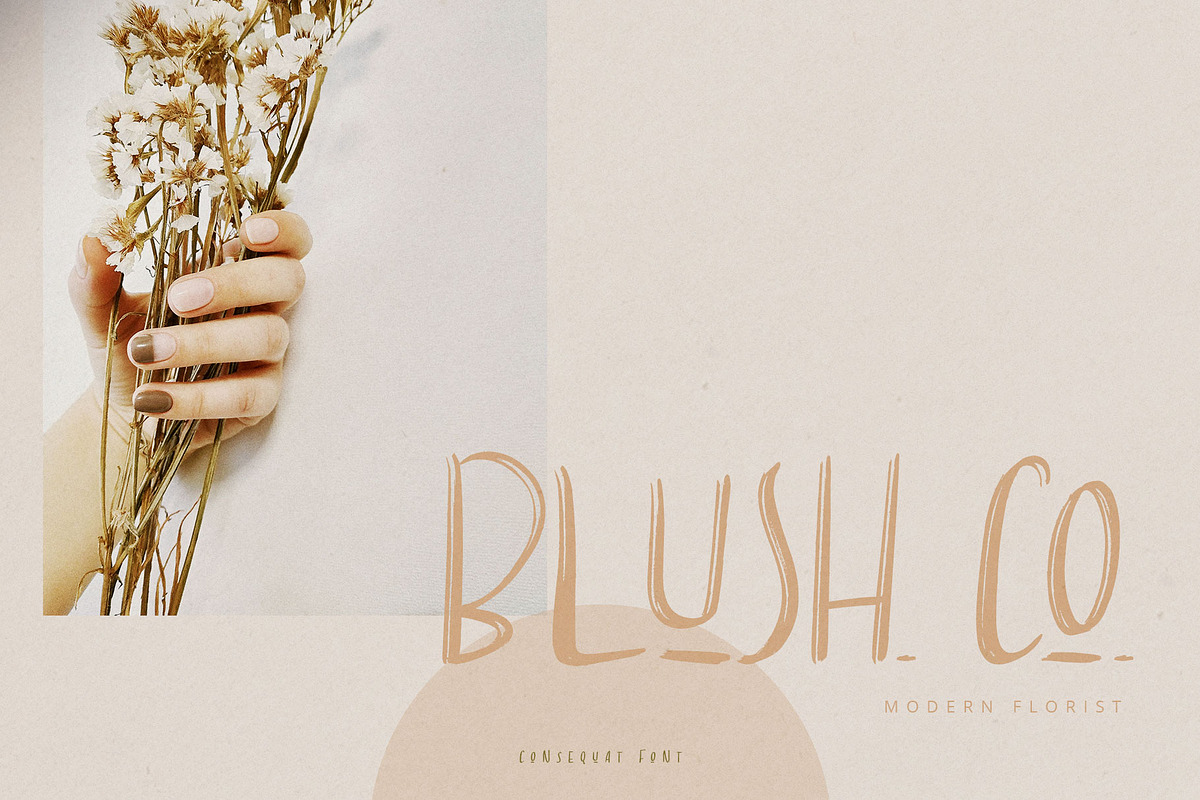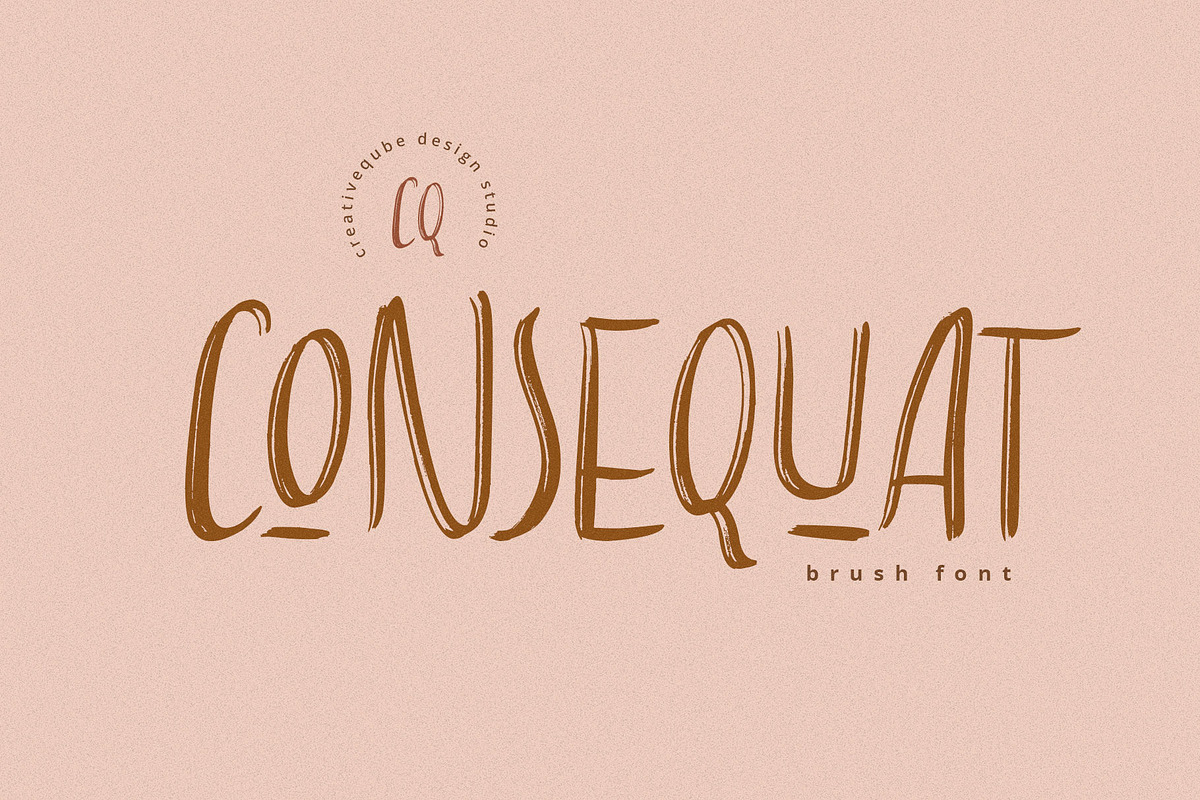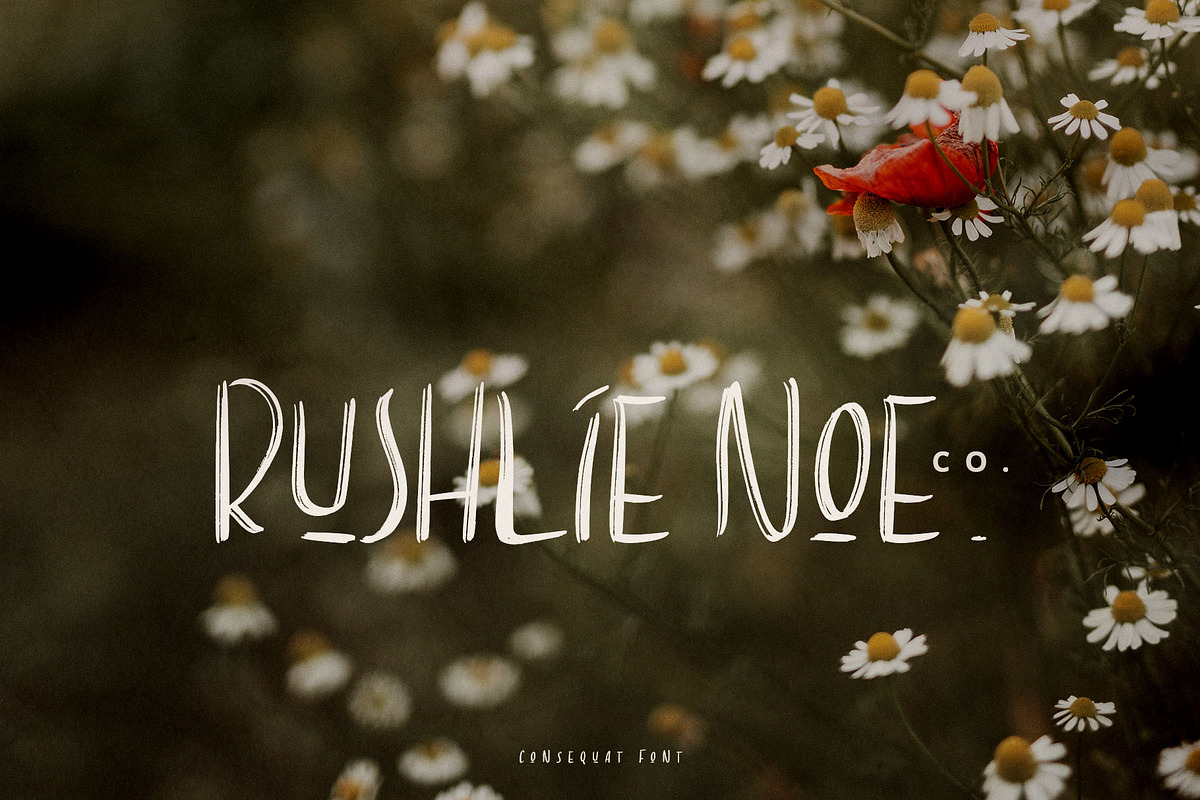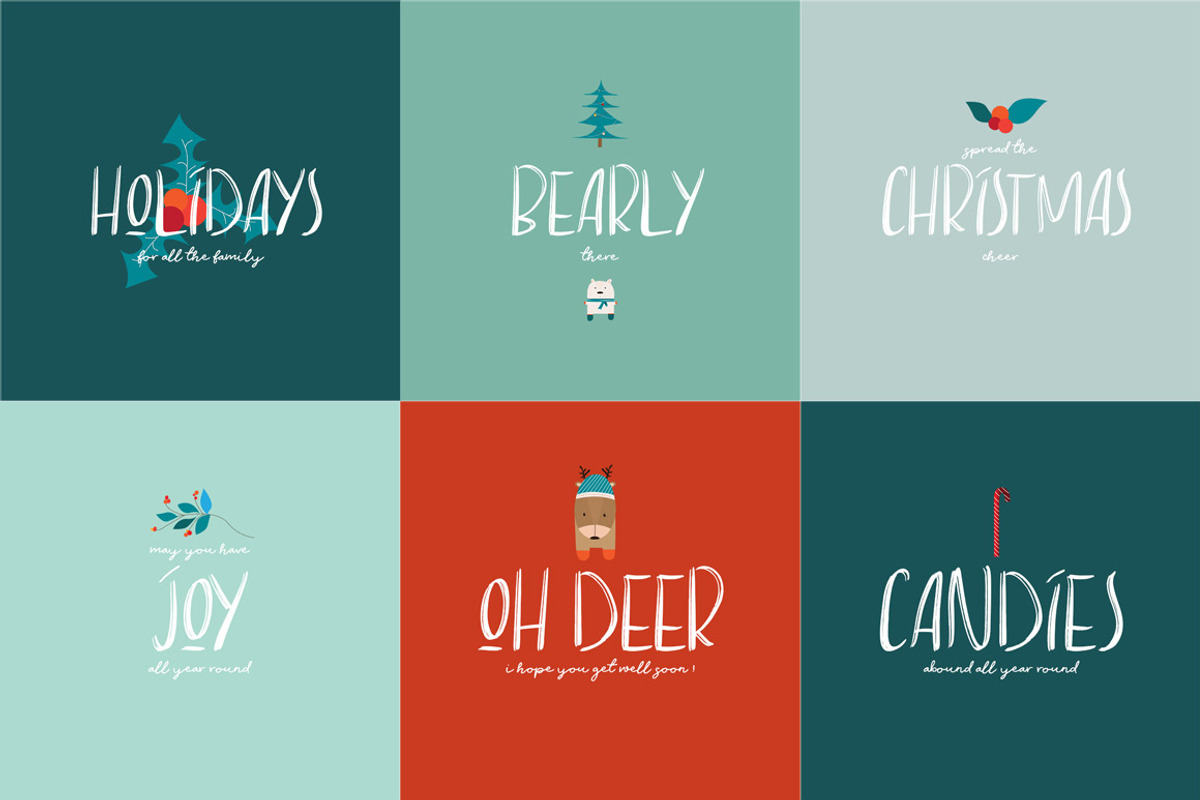
Consequat Font
Introducing Consequat Font. An all caps brush style display font.
- International characters included.
Consequat Font by Creativeqube Design fits naturally into Branding, posters, packaging, typography.